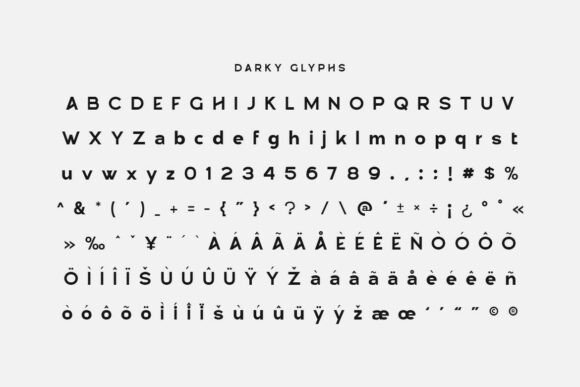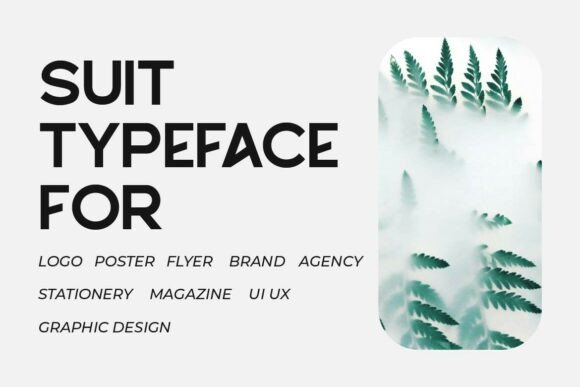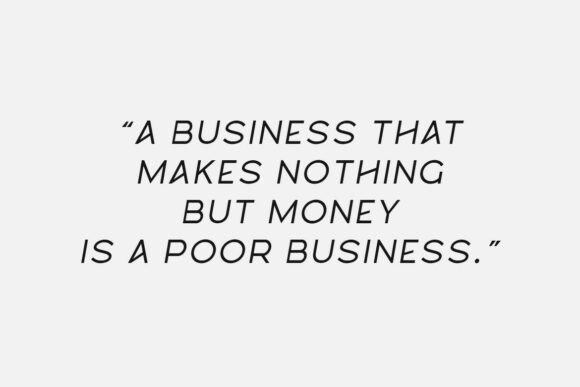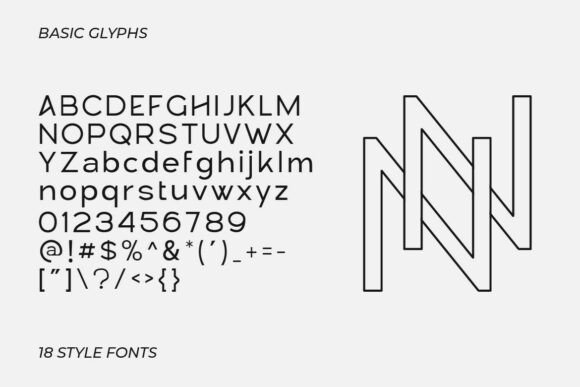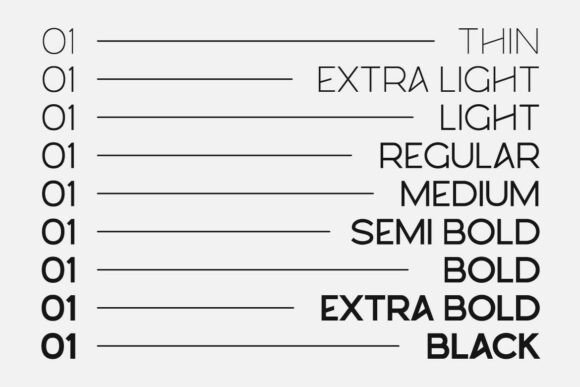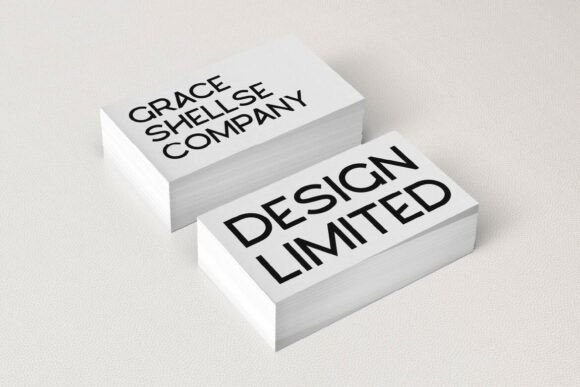
The Power of Darky Font: A Designer’s New Best Friend
I’ll never forget the time I was working on a project for a trendy new coffee shop. My client wanted a bold, modern look that would stand out on social media, but I was struggling to find the right font. That’s when I stumbled upon Darky Font, a game-changing sans serif font family that brought power, clarity, and flexibility to my typography.
First Impressions: A Bold and Contemporary Design
Darky Font is a bold and contemporary sans serif font family designed to bring power, clarity, and flexibility to your typography. With its clean structure, solid geometry, and modern proportions, Darky adapts perfectly to a wide range of design applications, from impactful headlines to sleek body text.
So, what do I love about Darky Font? Here are a few things that make it stand out:
- ✨ Versatility: Darky comes in multiple weights, making it perfect for a wide range of design applications.
- ✅ Legibility: The font’s clean structure and solid geometry ensure that it’s easy to read, even at small sizes.
- 💡 OpenType Features: Darky supports OpenType features, including glyphs and stylistic alternates, giving you even more creative control.
And, like any font, Darky isn’t perfect. Here are a few quirks to keep in mind:
- 🤔 Limited Ligatures: While Darky supports some ligatures, it’s not as extensive as some other fonts.
- ⚠️ Not Ideal for Body Text: While Darky can be used for body text, it’s primarily designed for headlines and titles.
The Designer Inspiration Behind Darky Font
Darky Font was designed with the modern designer in mind. Its creator, a renowned typographer, aimed to craft a font that would be both bold and elegant, with a unique character that would stand out in any design. The designer’s inspiration came from the urban landscape, with its sleek skyscrapers and modern architecture.
| Font Name | Darky Font |
| Author | Artiveko |
| What is Darky Font? | Darky Font is a bold and contemporary sans serif font family designed for a wide range of design applications. |